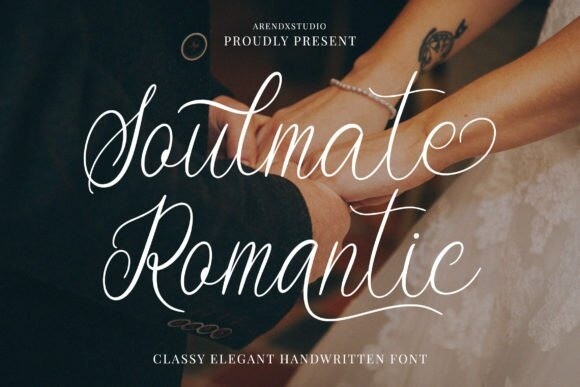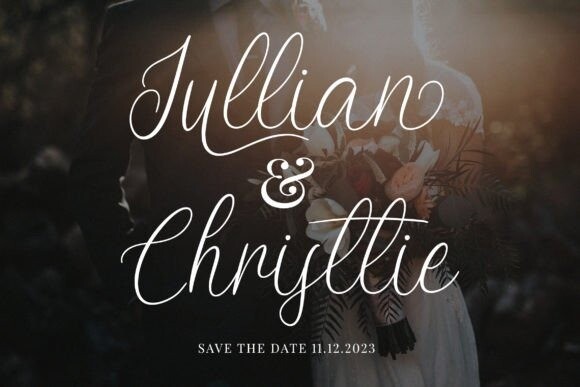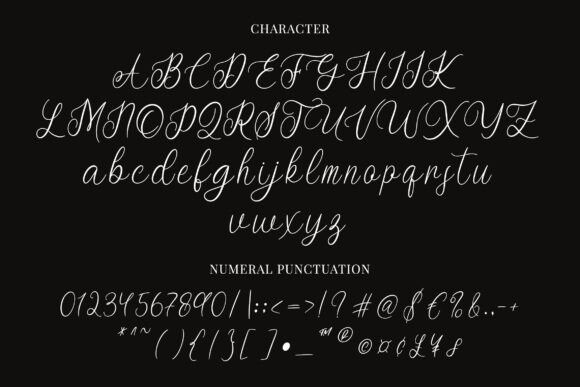
Soulmate Romantic Font
Soulmate Romantic Font – Elegant Calligraphy Font is a font with distinctive handwritten characters perfect for branding projects, logos, wedding designs, media posts, advertisements, product packaging, product designs, labels, photography, watermarks, invitations, stationery, and any project who need handwritten dishes.
Features : • Character Set A-Z • Numerals & Punctuations (OpenType Standard) • Accents (Multilingual characters) • Ligature • Alternate